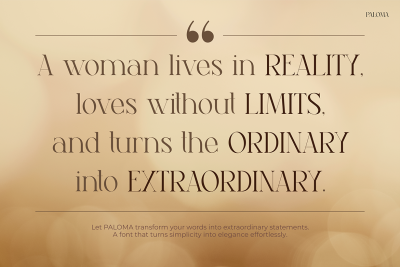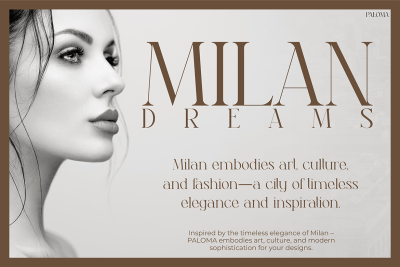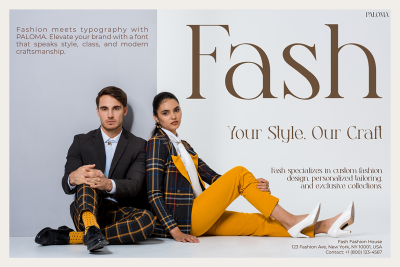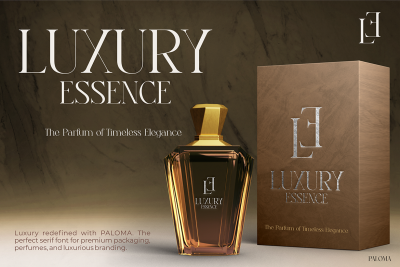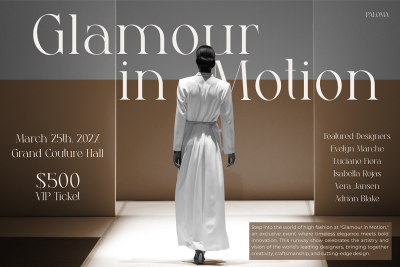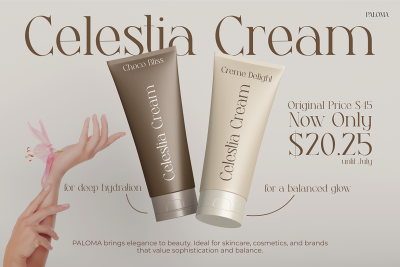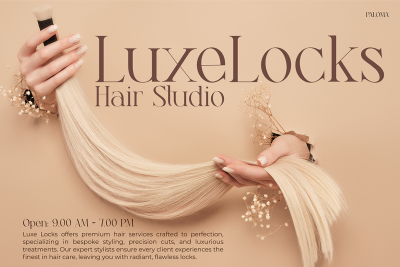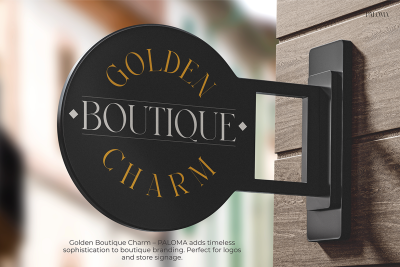
Instagram Font PALOMA combines sleek elegance with modern design, making it perfect for enhancing any creative project. Its clean lines and smooth curves create a timeless look, which adds sophistication to both digital and print designs. The font balances simplicity and luxury, allowing designers to use it across various applications, from branding to social media.
Its minimalist design seamlessly integrates into projects that require subtle sophistication. For instance, fashion brands, beauty products, and lifestyle content can benefit from its refined style. The font ensures readability with generous spacing between letters while maintaining a high-end appeal. Designers choose PALOMA to gently draw attention without overwhelming their layouts, making it ideal for those seeking understated elegance. Additionally, the font works well as a focal point in headers or as a complement to more decorative elements.
What sets PALOMA apart is its ability to adapt to different moods and styles. Whether you are creating bold headlines or delicate captions, the font retains its luxurious and polished look. Its timeless design ensures that your work will remain visually appealing for years, making it an excellent investment for creative professionals.
Instagram Font PALOMA Best Suited For
Influencers, content creators, and businesses in the fashion, beauty, and lifestyle industries will find Instagram Font PALOMA ideal for their projects. It complements brands that emphasize quality, style, and exclusivity. Bloggers and social media users can enhance their posts or Stories by using PALOMA to achieve a polished and professional look.
Graphic designers frequently use PALOMA for print media, such as magazines, brochures, and lookbooks. Its chic serif style elevates logos, business cards, and product labels with a luxurious touch. Wedding planners and stationery designers can craft elegant invitations that exude timeless charm with this font.
PALOMA also works well for personal branding projects. Creatives looking to refresh their portfolios, resumes, or online profiles can use it to make a striking yet refined impression. Furthermore, high-end product packaging or minimalist web design can benefit greatly from PALOMA’s sophisticated presence.
In conclusion, Instagram Font PALOMA suits anyone aiming to add refinement and versatility to their work. Whether youโre building an online presence or creating premium designs, PALOMA provides a stylish and professional finish. Its versatility and elegance make it a must-have for designers seeking to elevate their projects to the next level.